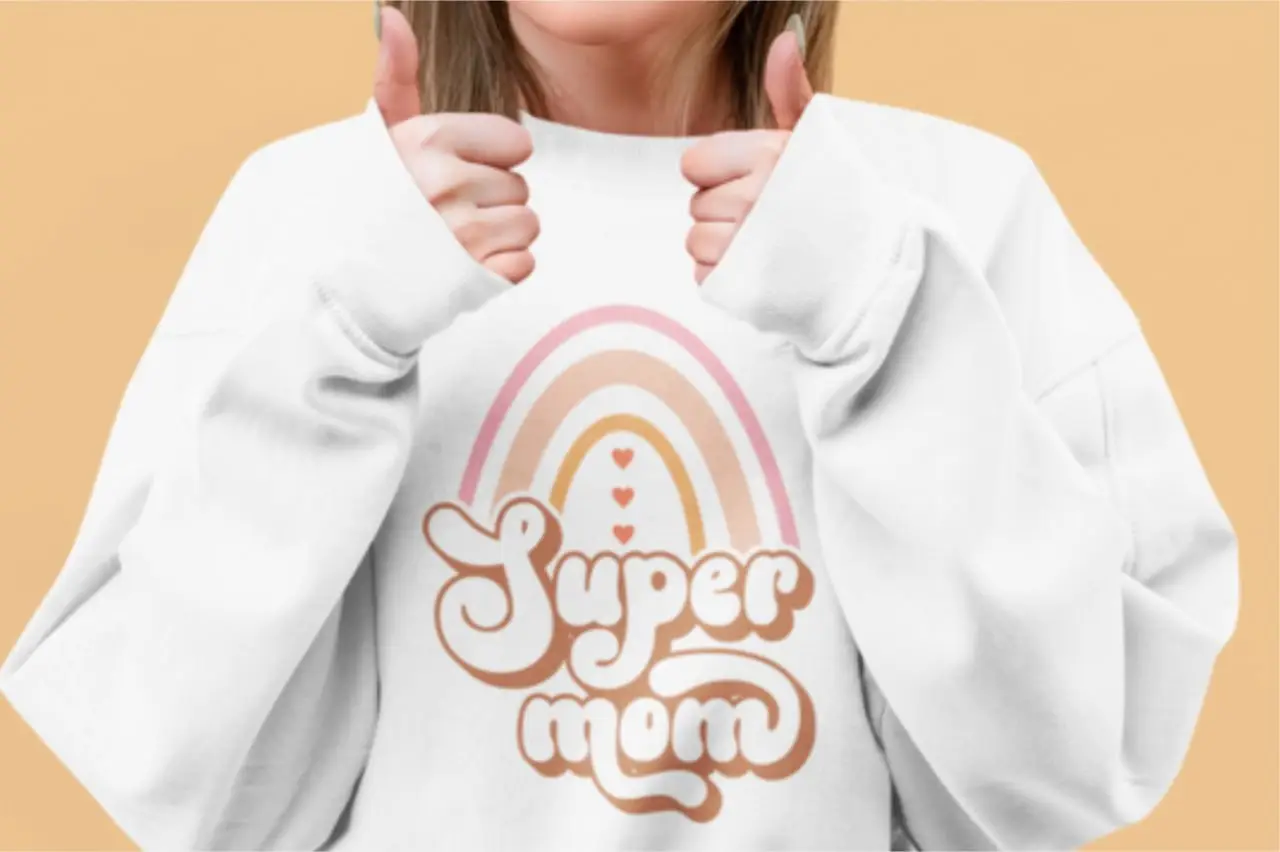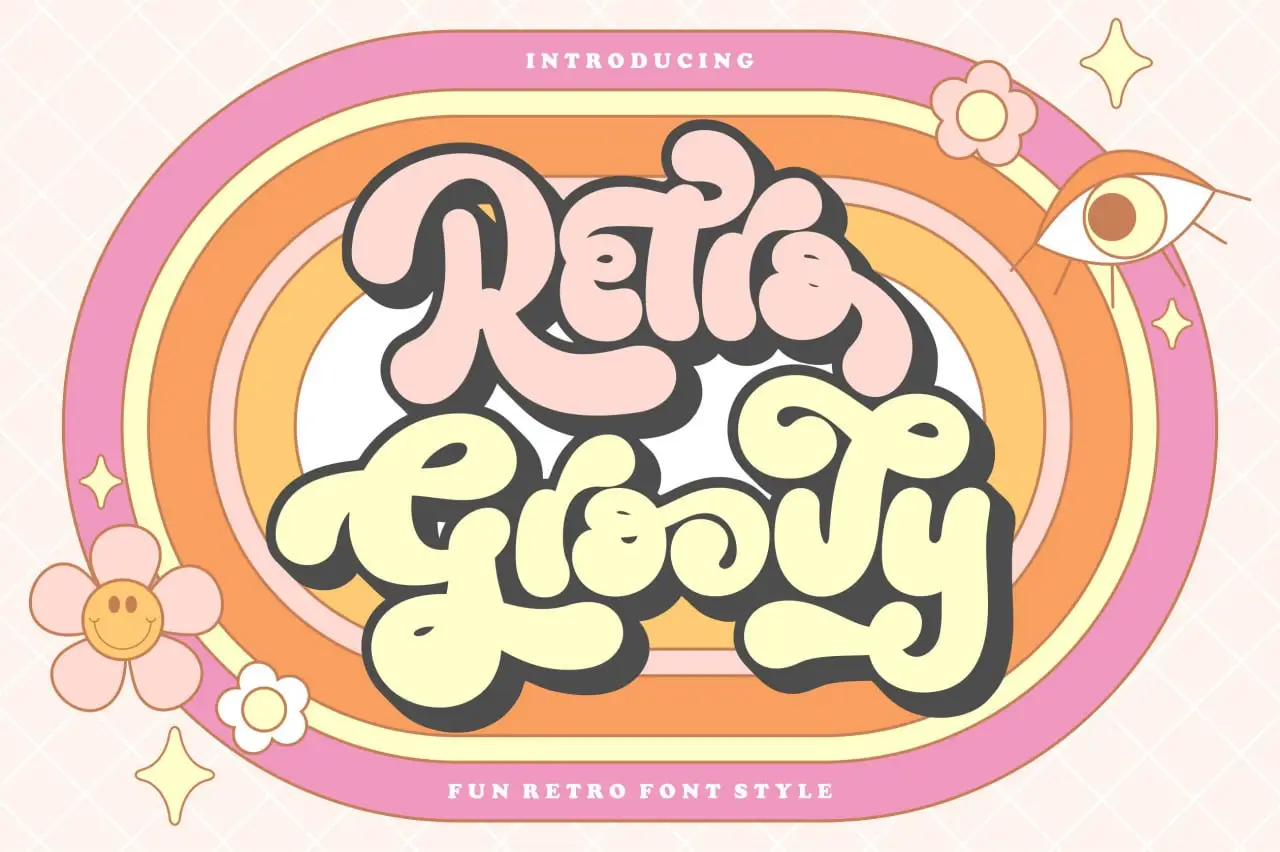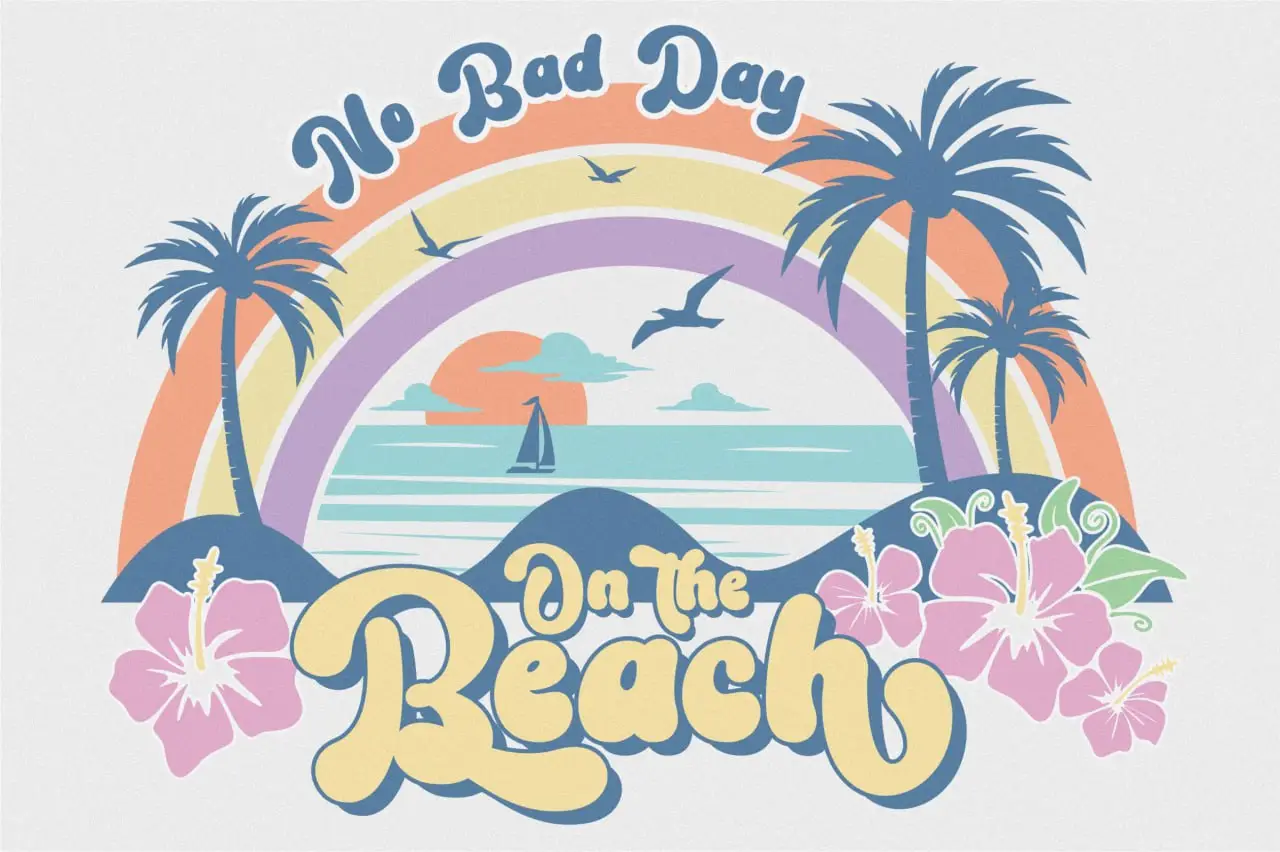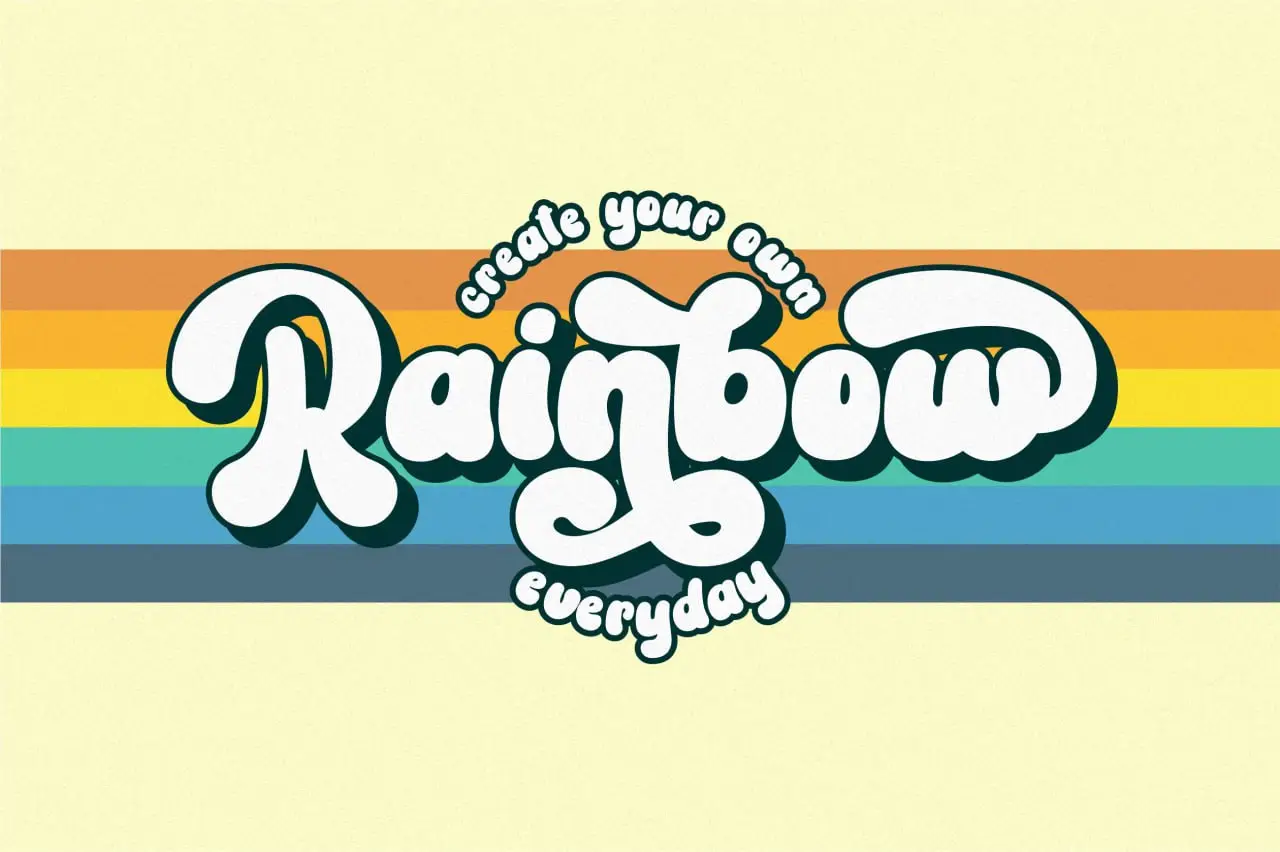
Retro Groovy Font By Tedha Studio
The Retro Groovy Font by Tedha Studio captures the essence of vintage design with its playful curves and bold character. This font is perfect for those looking to add a nostalgic touch to their projects, whether for branding, logos, or creative web designs.
• Style: Display
• Weights: Regular
• Ideal for branding and logo design.
• Great for print materials like posters and flyers.
• Use in digital projects for a retro vibe.